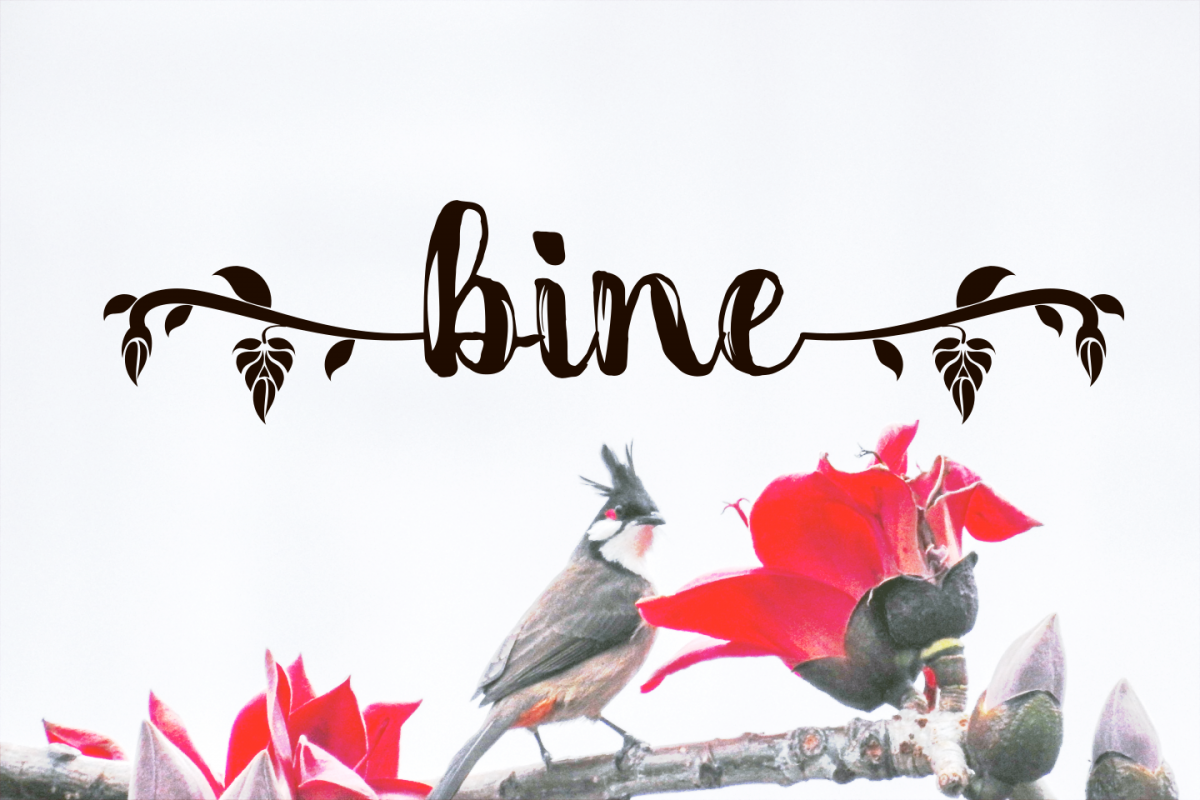
bine trimming script
bine
bine is a beautiful script font with a trimming style. very easy alternate to use. just place (,),{,},<,>,a.1,a.2 for the combination of the beginning and end of the letter.